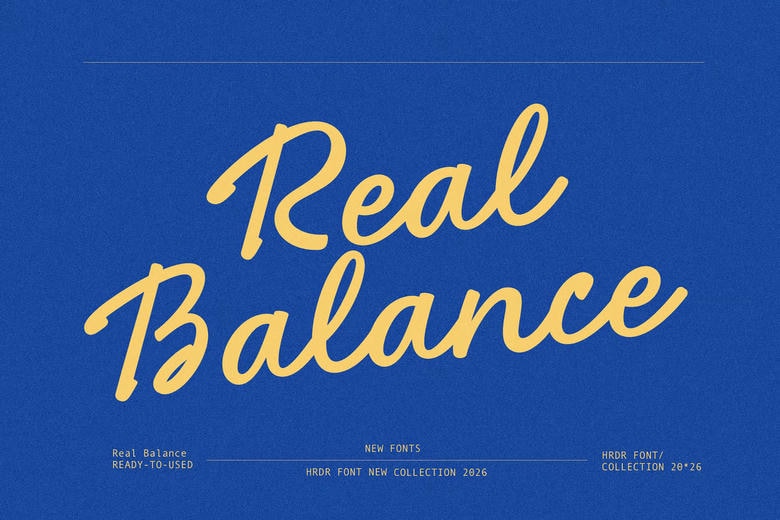
Real Balance Font
Real Balance is a modern, elegant handwritten font with a clean look. It works well for branding, beauty and skincare, coastal lifestyle projects, invitations, stationery, wedding designs, social media, ads, product packaging, labels, posters, photography, and special events.
Real Balance Handwritten Script Font